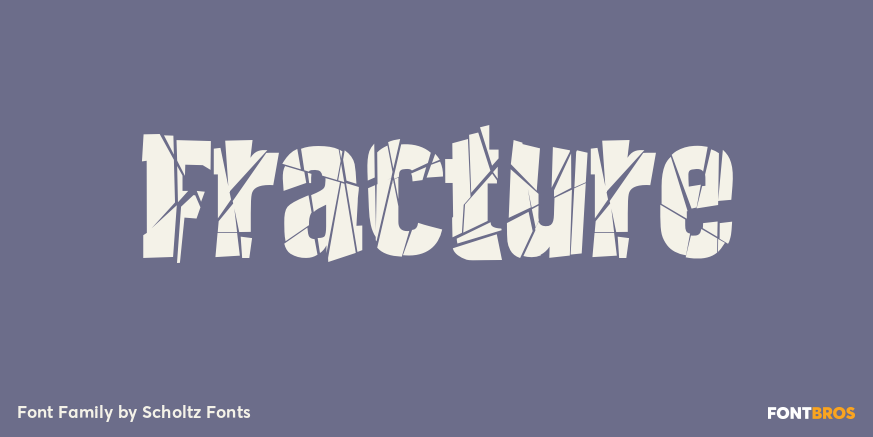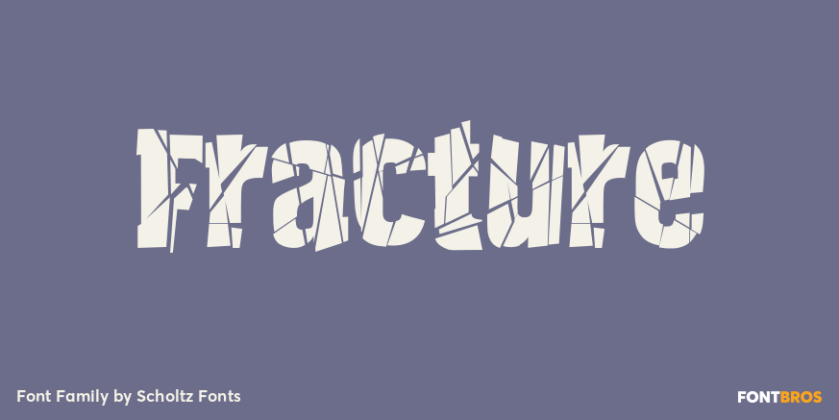
Fracture
About Fracture
Fracture is a broken font — broken into many pieces — yet it still conveys a powerful and modern message. It is a funky, in-your-face font that has strong overtones of modern rap and hip-hop culture. Its fragmented look brings to mind graffiti, contemporary…